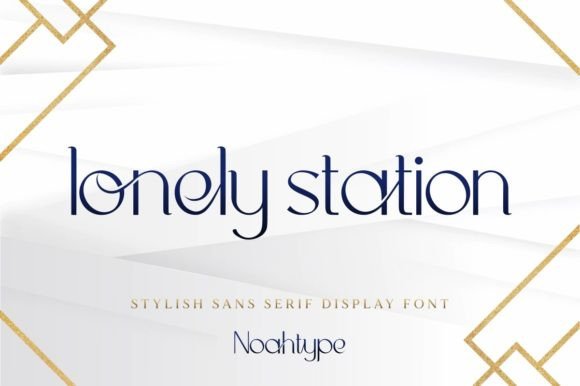
Unleash the allure of elegance and sophistication with Lonely Station Font, a modern sans serif display font that exudes timeless beauty. Its sleek lines, continuous letterforms, and effortless readability make it a captivating choice for a wide array of creative projects.
Immerse yourself in the world of fashion, where Lonely Station Font graces magazine covers, fashion blogs, and online boutiques, adding an air of exclusivity and style. Let your words dance on wedding invitations, greeting cards, and personalized stationery, imbued with a touch of heartfelt charm.
Embark on a culinary journey as Lonely Station Font adorns restaurant menus, food packaging, and social media posts, tantalizing taste buds and creating an ambiance of culinary delight. Its versatility extends to the world of beauty, where it enhances product labels, promotional materials, and online stores, captivating audiences with its timeless allure.
Lonely Station Font blooms with creativity in the hands of florists, adorning delicate petals, gift tags, and floral arrangements with its elegant touch. It breathes life into the written word, lending its charm to books, magazines, and publishing houses, captivating readers with its timeless appeal.
Step into the realm of art and design, where Lonely Station Font finds its home on posters, flyers, and social media graphics, captivating attention with its striking presence. Its versatility shines in the realm of UI/UX design, lending its sleek lines to app interfaces, website designs, and digital products, creating a seamless user experience.
With Lonely Station Font as your creative companion, the possibilities are endless. Its modern sophistication and timeless beauty will elevate your designs, leaving a lasting impression on all who encounter it. Embrace the allure of Lonely Station Font and embark on a creative journey that knows no bounds.